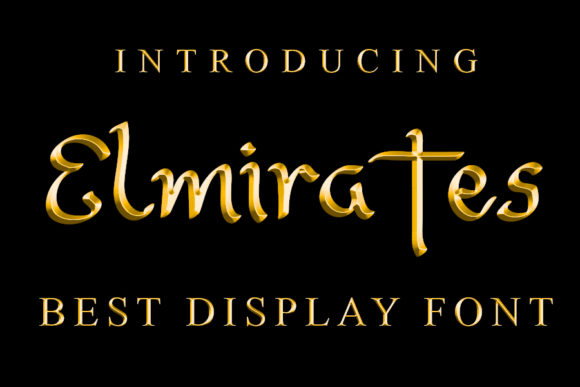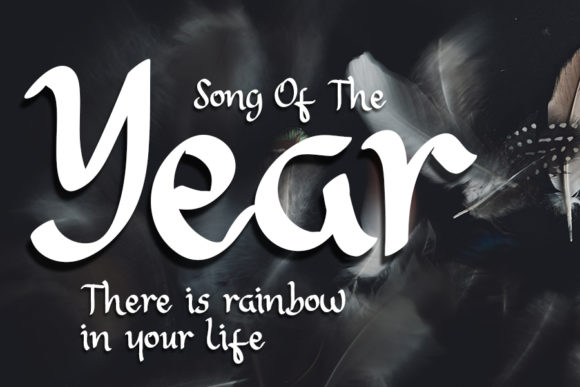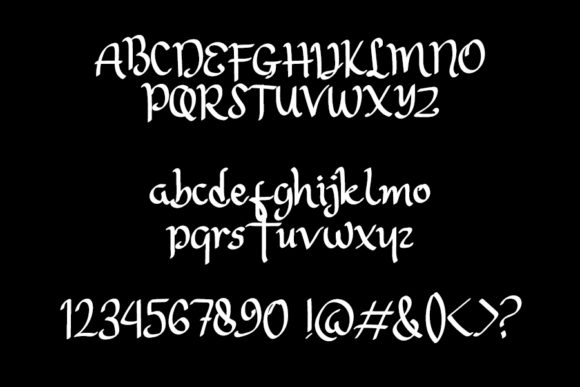
About Elmirates Font
Elmirates is a modern and flowing handwritten font. It feels incredibly elegant and it looks stunning on wedding invitations, thank you cards, quotes, greeting cards, logos, business cards and every other design which needs a handwritten touch.